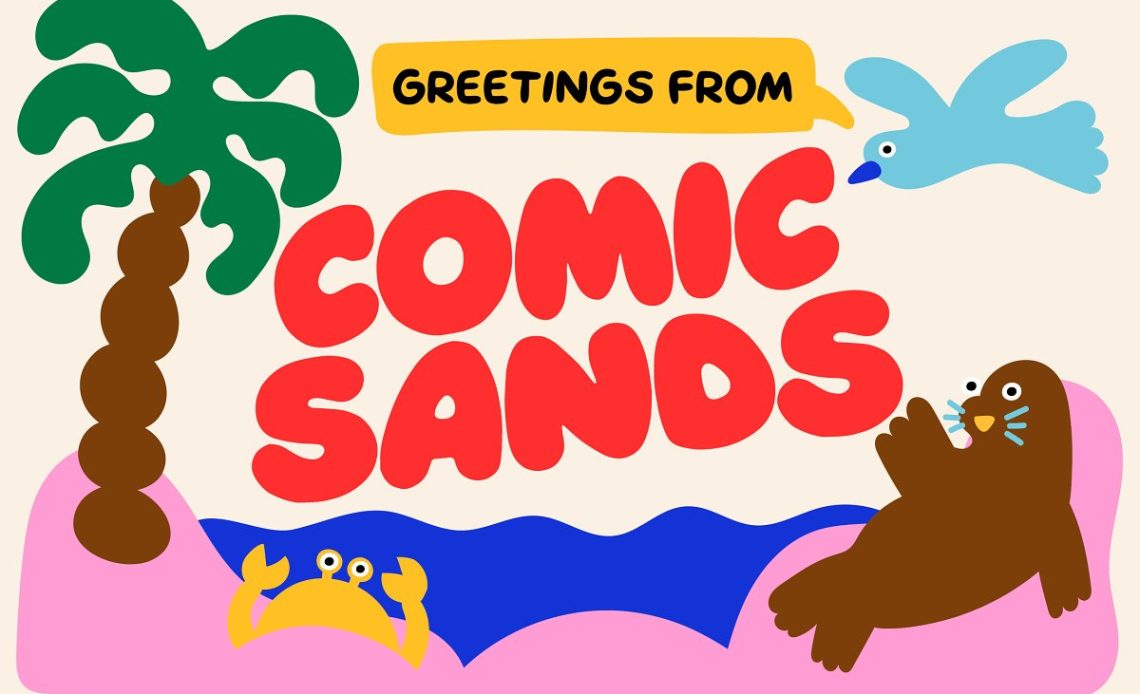
Looking for a font that will bring out the fun and playful side of your design? Look no further than Comic Sands! Created by Meg Lewis, this sans serif font is the perfect choice for those who want to add a touch of humor and lightheartedness to their project.
But don't let the name fool you – Comic Sands is not your average comic book font. This blobby parody of a popular font is designed to look like it was hand-drawn, giving each character a unique and playful feel. The subtle variations in cap height, ascender height, x-height, baseline, spacing, weight, and contour line quality all work together to create a regular and bold weight that feel like cousins, not twins.
Comic Sands is not just a fun font, it's also incredibly versatile. It pairs well with other fonts and looks great on everything from comics and menus to brand design and websites. Plus, with letters, numbers, symbols, and punctuation all included in the files, you'll have everything you need to create the perfect design.